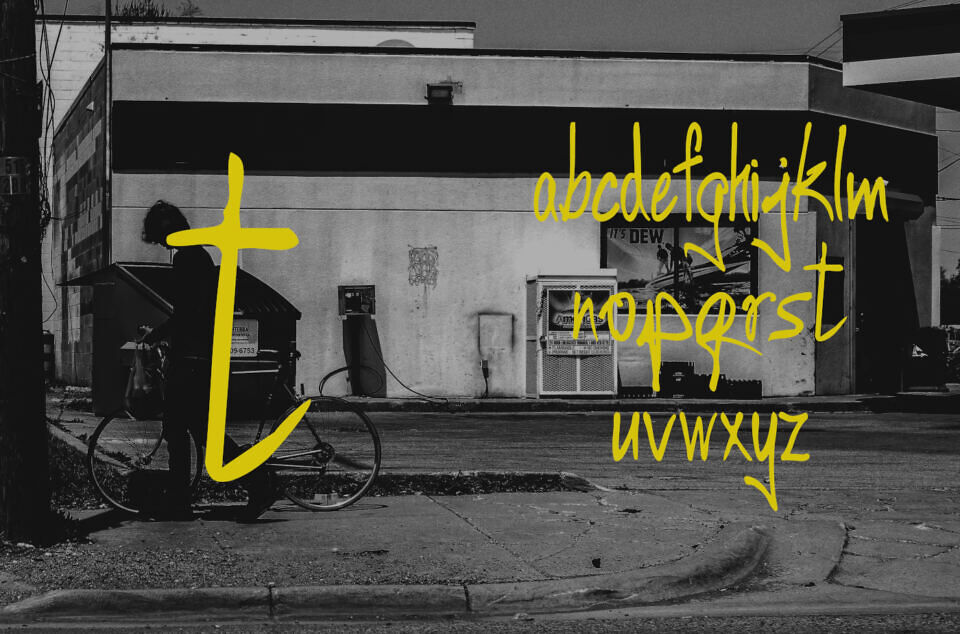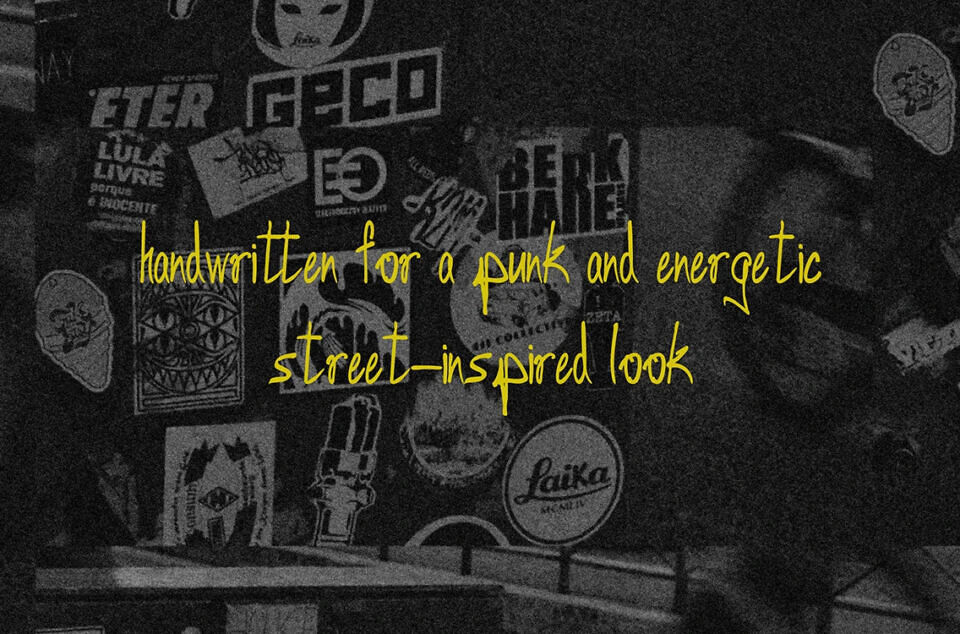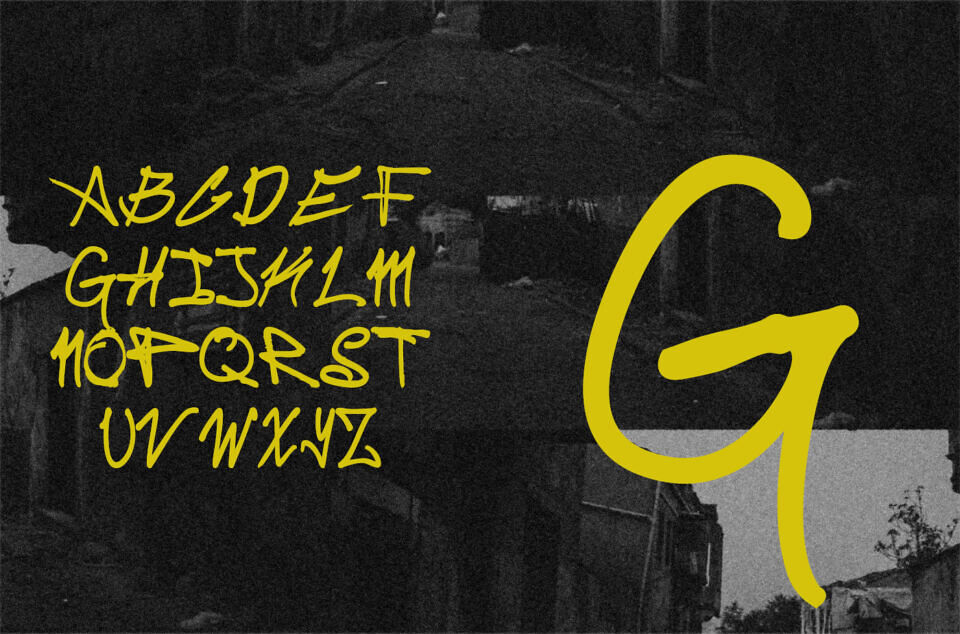
This typeface was sketched, smudged, and brought to life with the raw energy of the city. Inspired by hand-painted signs, graffiti tags, and the imperfect beauty of urban textures, Edgeflow captures the rhythm of real handwriting, bold, irregular, and unapologetically human.
This is not a polished font. It’s an experiment. A visual voice shaped by pavement cracks, alleyway scribbles, and everyday chaos. Some typographic refinements like kerning and sizing aren’t fully resolved, by design. What you get is character over perfection. Made for projects that need grit, attitude, and authenticity.